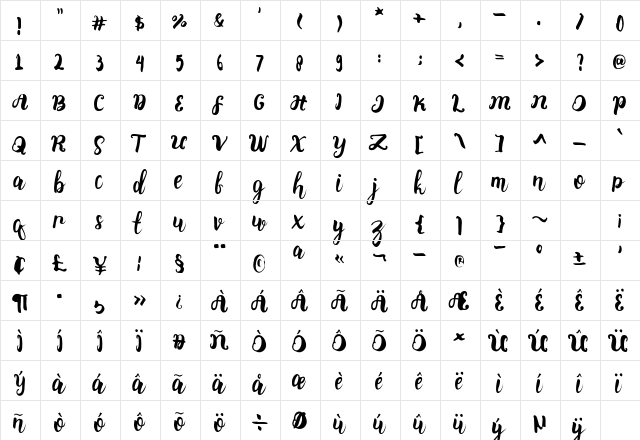
stainella script Regular
Design Context for stainella script Typeface
stainella script flows with the natural rhythm of handwritten lettering, making it ideal for designs that call for warmth and personal expression.
Font Pairing: Combine stainella script with a simple geometric sans for maximum contrast — the tension between flowing curves and clean structure is a classic typographic pairing.
Pro Tip: Use stainella script for short runs of text — names, titles, or taglines. Extended body copy in script faces tires the eye quickly.